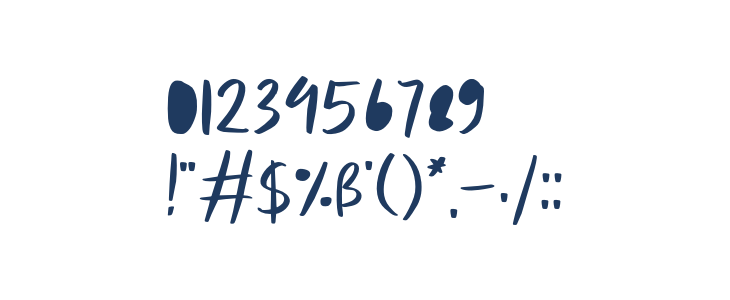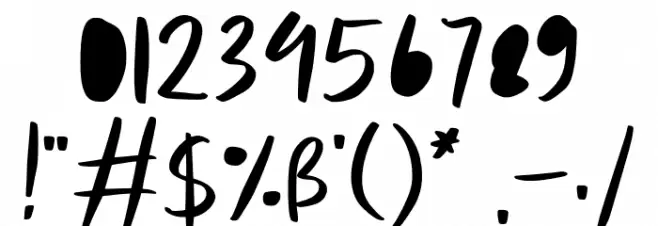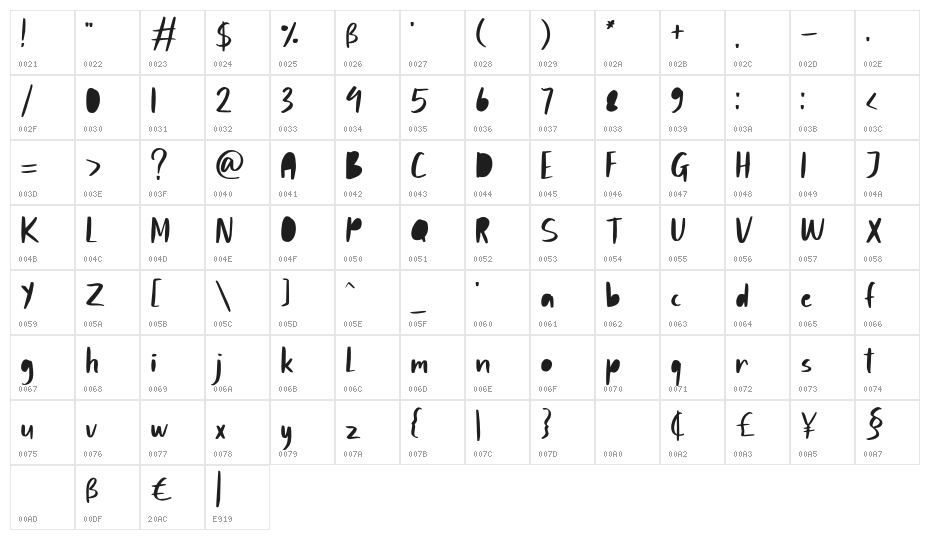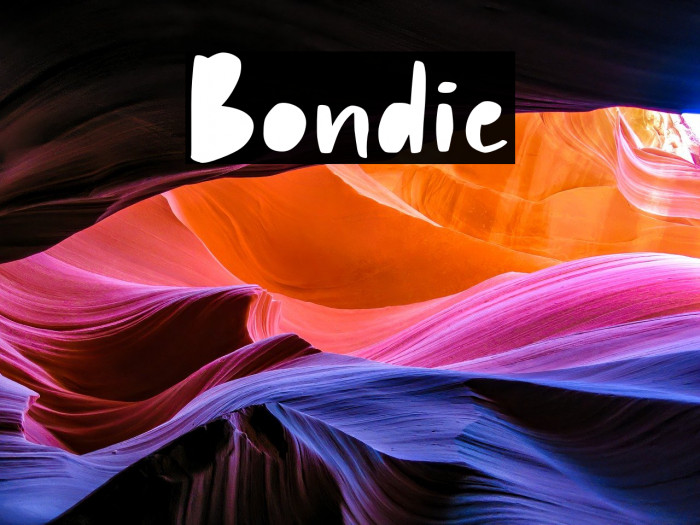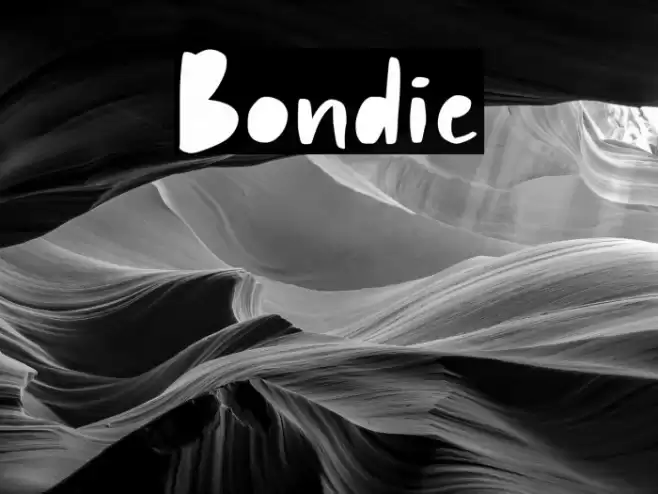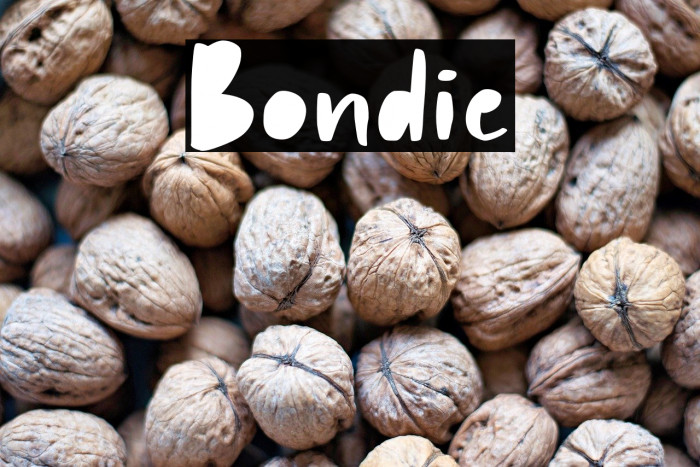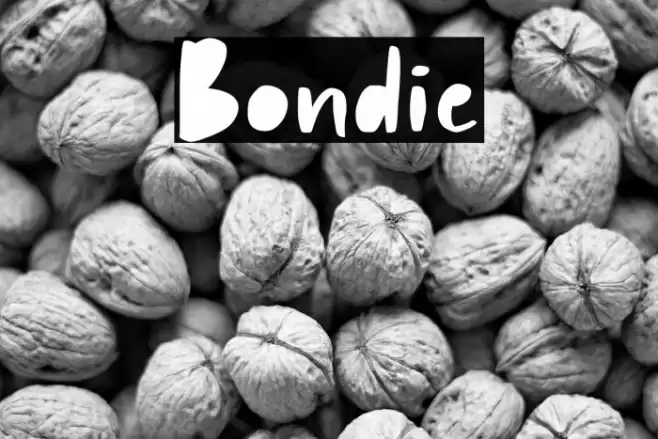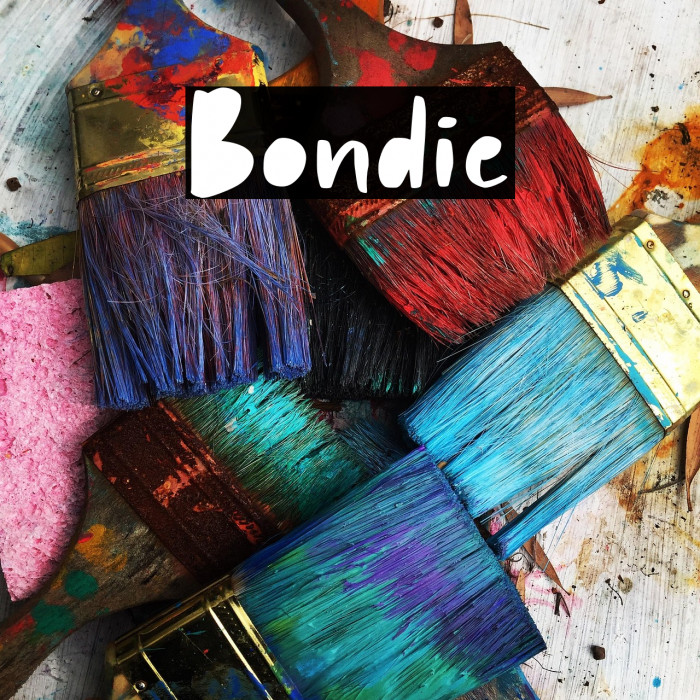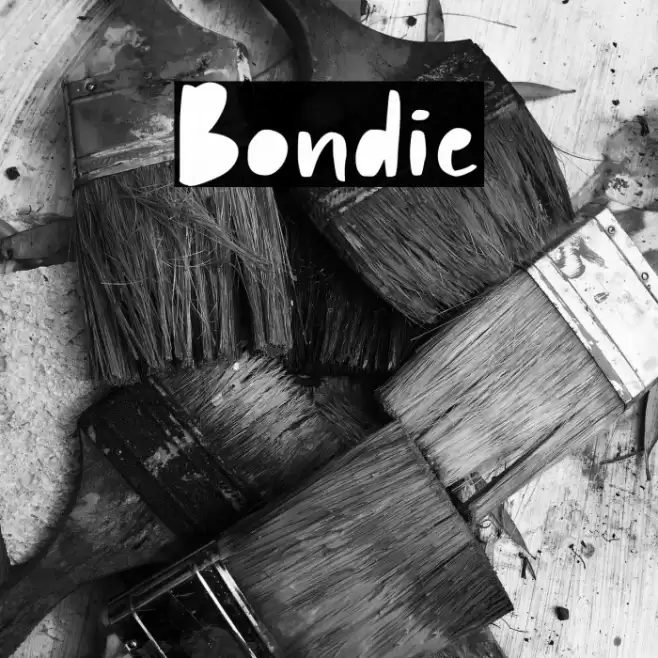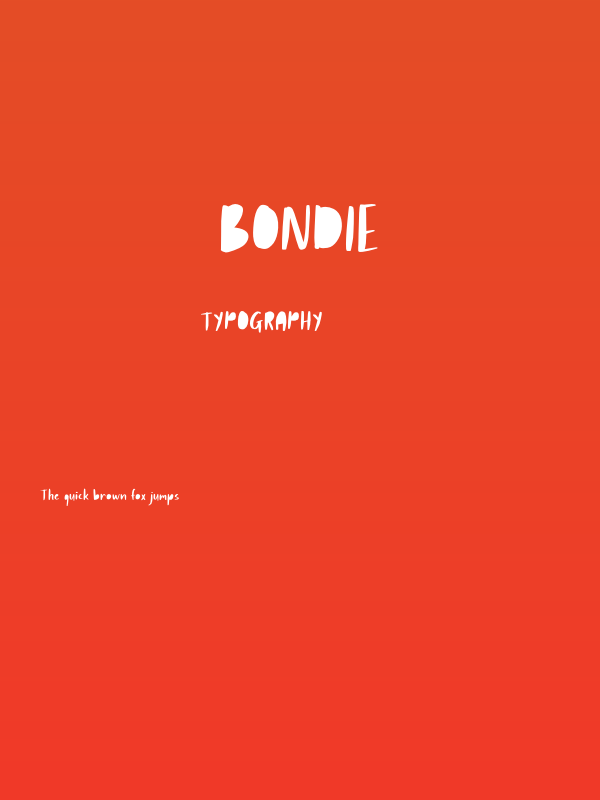
Bondie Font
Bondie Description
This font showcases a playful and dynamic handwritten style, characterized by its bold and slightly irregular strokes. The letters exhibit a casual and informal appearance, with varying thickness that adds a sense of movement and energy. The uppercase letters are bold and prominent, while the lowercase letters maintain a consistent flow, enhancing readability. The numerals and special characters follow the same lively aesthetic, making them suitable for creative and artistic projects. The overall design is approachable and friendly, perfect for conveying a sense of warmth and personality.
| Overall Style | Playful, Casual |
| Proposed Projects | Ideal for greeting cards, children's books, playful branding, and creative posters. |